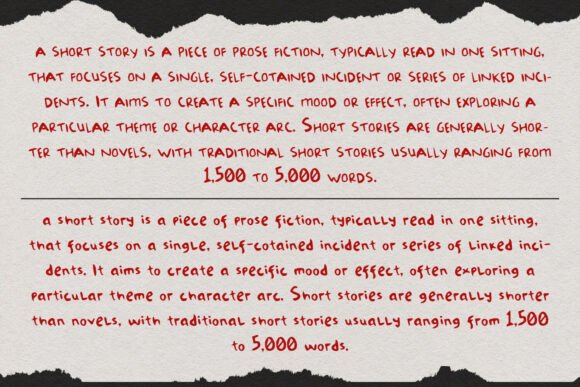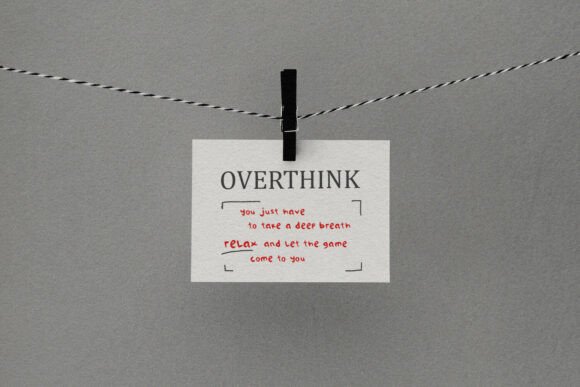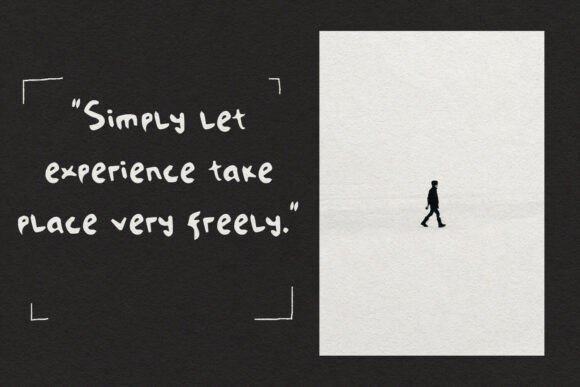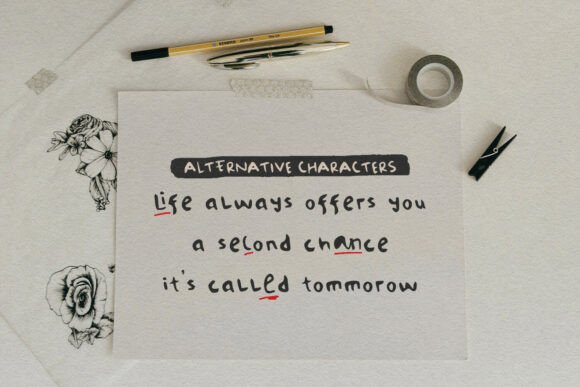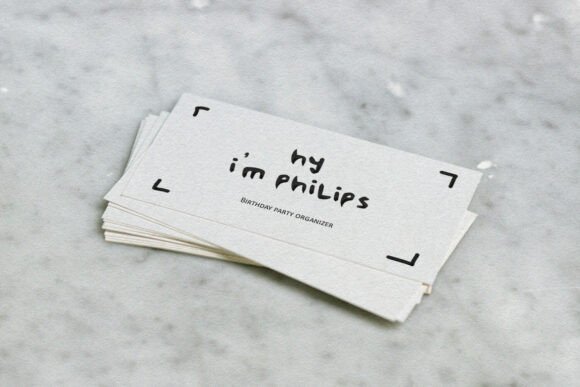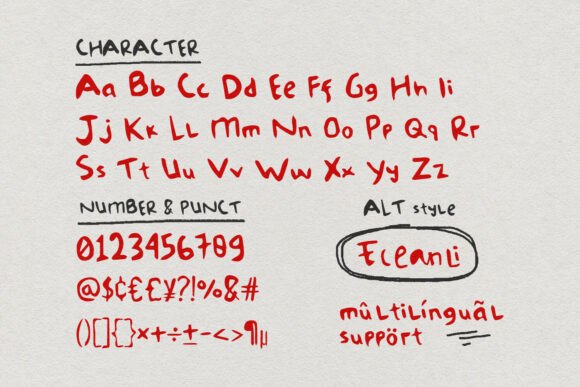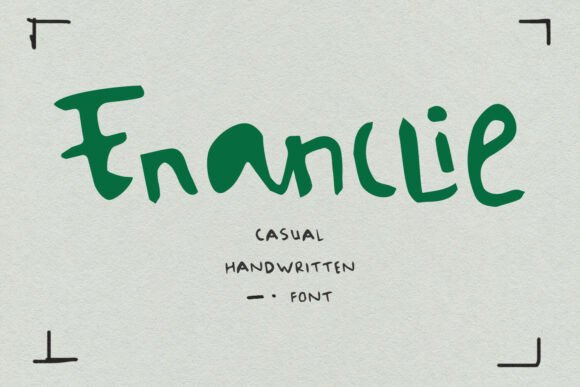
Introducing Enanclie Font: The Quirky and Authentic Handwritten Font You Need
Are you tired of using the same old fonts in your designs? Do you want to add a touch of personality and whimsy to your projects? Look no further than Enanclie Font, a quirky and authentic handwritten font that’s perfect for journals, creative posters, greeting cards, and social media graphics.
The Charm of Enanclie Font
Enanclie Font is a one-of-a-kind font that’s bursting with carefree, casual charm. Its irregular strokes and playful letterforms give it a spontaneous, handmade feel that’s sure to make your designs stand out. Whether you’re a designer, crafty DIY enthusiast, or social media influencer, Enanclie Font is the perfect way to add a dose of fun and authenticity to your projects.
What Makes Enanclie Font So Special?
So, what sets Enanclie Font apart from other fonts out there? Here are just a few things that make it so special:
- Unique and Quirky Design: Enanclie Font has a truly one-of-a-kind design that’s sure to turn heads. Its irregular strokes and playful letterforms give it a fun and spontaneous feel that’s perfect for creative projects.
- Handmade Feel: Enanclie Font has a genuine, handmade feel that’s perfect for designers and crafters who want to add a personal touch to their work.
- Versatile: Whether you’re designing a journal, poster, greeting card, or social media graphic, Enanclie Font is the perfect choice. Its playful design works well in a variety of contexts, from formal to informal.
How to Use Enanclie Font in Your Designs
Ready to give Enanclie Font a try? Here are a few ideas for how you can use it in your designs:
- Journals and Planners: Add a touch of personality to your journal or planner with Enanclie Font. Use it for headings, titles, or even entire pages of writing.
- Creative Posters: Create eye-catching posters that stand out with Enanclie Font. Its playful design is perfect for promoting events, products, or services.
- Greeting Cards: Add a personal touch to your greeting cards with Enanclie Font. Its handmade feel makes it perfect for special occasions like birthdays, weddings, and holidays.
- Social Media Graphics: Use Enanclie Font to create social media graphics that stand out from the crowd. Its playful design works well for Instagram, Facebook, Twitter, and more.
Tips for Getting the Most Out of Enanclie Font
Here are a few tips for getting the most out of Enanclie Font:
- Experiment with Different Sizes: Enanclie Font looks great in a variety of sizes, from small and delicate to large and bold. Experiment with different sizes to find the one that works best for your design.
- Pair it with Other Fonts: Enanclie Font pairs well with a variety of other fonts. Try pairing it with a clean sans-serif font for a fun and modern contrast.
- Use it in Combination with Images: Enanclie Font looks great in combination with images, especially illustrations and hand-drawn graphics. Try using it to add a title or caption to an image.
Enanclie Font is a quirky and authentic handwritten font that’s perfect for designers and crafters who want to add a touch of personality to their projects. Its irregular strokes and playful letterforms give it a spontaneous, handmade feel that’s sure to make your designs stand out. Whether you’re designing a journal, poster, greeting card, or social media graphic, Enanclie Font is the perfect choice. So why wait? Give Enanclie Font a try today and see the difference it can make in your designs!